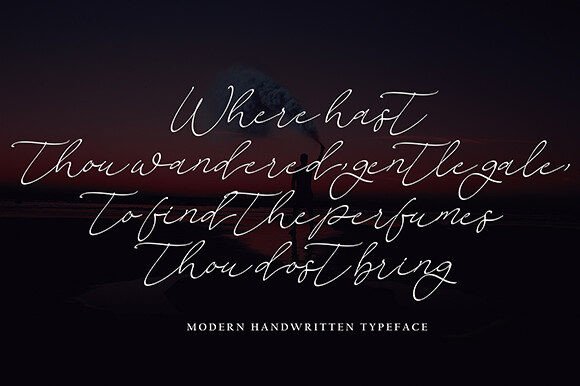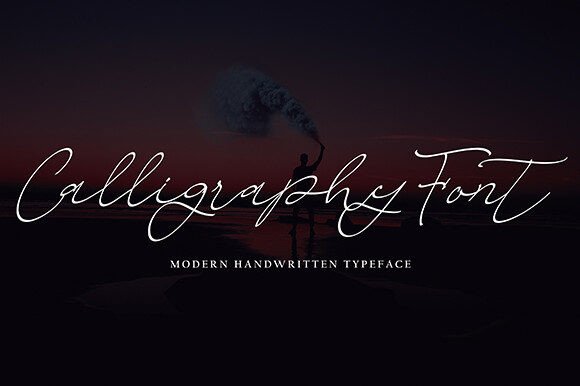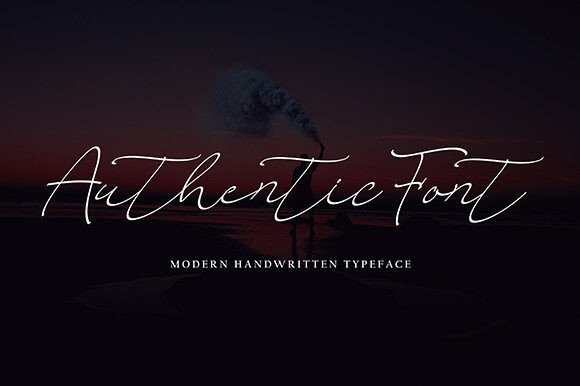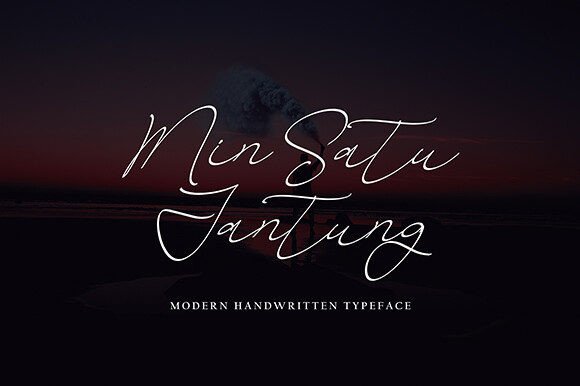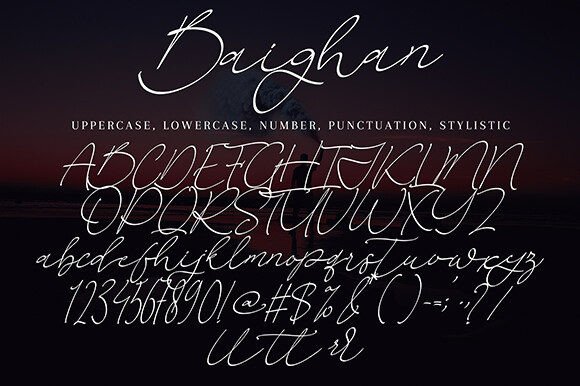
Introduction to Baighan Font
Have you ever been working on a design project, pouring your heart and soul into every detail, only to feel like something is missing? You’re not alone! As designers, we’re always on the lookout for that one special element to elevate our creations and make them truly stand out. And that’s exactly where the Baighan Font comes in – a stunning, high-quality handwritten font that’s about to become your new design BFF.
Whether you’re a seasoned pro or just starting out, the Baighan Font is an incredible resource that’s sure to add a touch of luxury to your creative project. With its unique feel and stunning impact, this free download is perfect for designers looking to add a little extra oomph to their designs. Plus, with a transparent background, the possibilities are endless!
Key Features of Baighan Font
- Unique design with a transparent background, ideal for graphic designers and digital artists
- Supports a wide range of languages, making it a versatile design resource
- Designed with a modern aesthetic, perfect for branding, typography, and visual identity projects
Honest Review: Baighan Font
I recently stumbled upon the Baighan Font, a design resource that’s been making waves in the creative community. As a designer, I was eager to dive in and see what it’s all about.
- ✨ The Baighan Font has a high quality, elegant design that’s perfect for a variety of creative projects.
- ✨ The font is highly versatile, with a transparent background that makes it easy to layer and manipulate.
- ✨ The designer has provided a comprehensive guide on how to use the font, which is a great touch for users who are new to font design.
- ⚠️ The font is only available in a few weights and styles, which may limit its versatility in certain projects.
- ⚠️ The font’s design may not be suitable for projects that require a more bold or playful aesthetic.
Overall, I’m impressed with the Baighan Font. It’s a high-quality design resource that’s perfect for designers who are looking for a elegant and sophisticated font. With its transparent background and comprehensive guide, it’s a great addition to any design arsenal.
How to Use Baighan Font
The Baighan Font is a high-quality, free download design resource that can elevate your creative project to the next level. With its unique style and versatility, it’s perfect for a wide range of applications.
To get the most out of the Baighan Font, experiment with different font sizes, colors, and combinations with other fonts. You can also use it to create eye-catching headings, titles, and even body text.
The Baighan Font is perfect for a variety of creative projects, including logos, brochures, business cards, and even social media graphics. Its unique style and high-quality design make it a great choice for any design project.